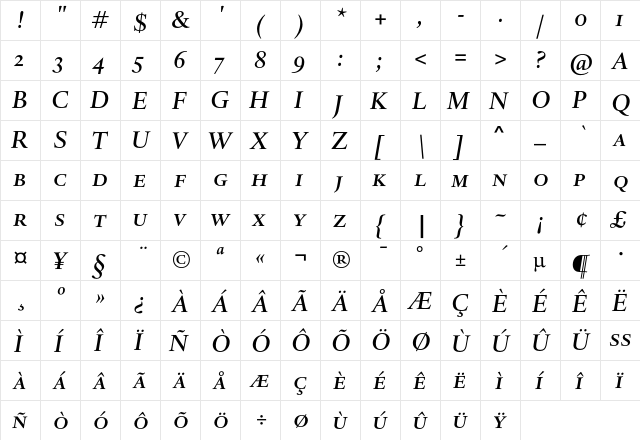
DTL Haarlemmer D Caps Medium Italic
Design Context for DTL Haarlemmer Typeface
DTL Haarlemmer is a composed and adaptable typeface that performs quietly and consistently across a wide range of design contexts. The slanted form adds forward momentum and visual energy.
Pro Tip: Try DTL Haarlemmer for annotation and caption copy alongside an upright companion — the contrast in angle creates a dynamic but ordered typographic system.